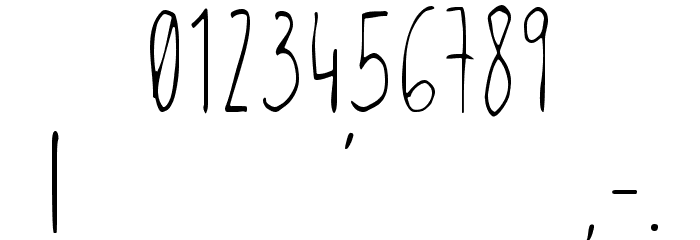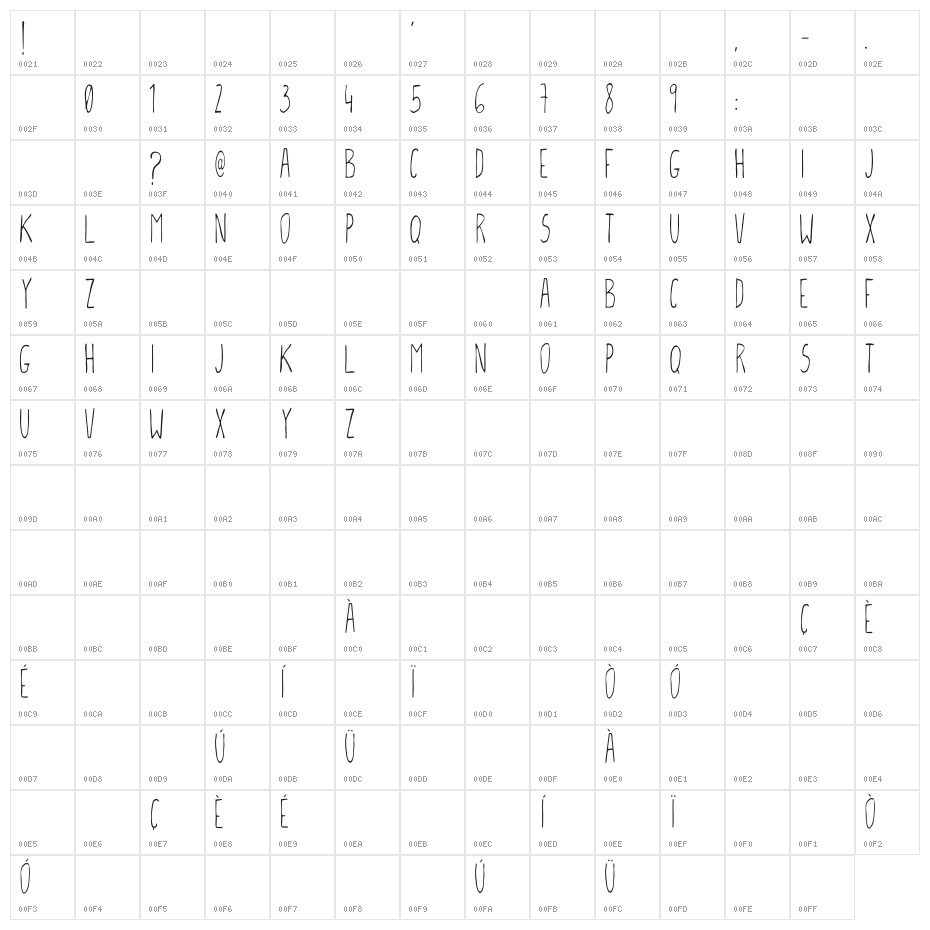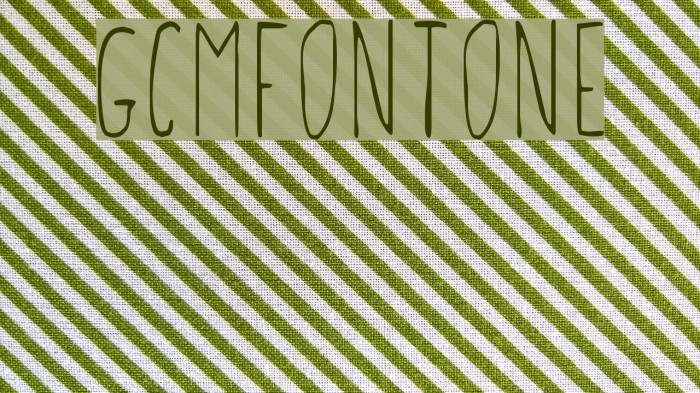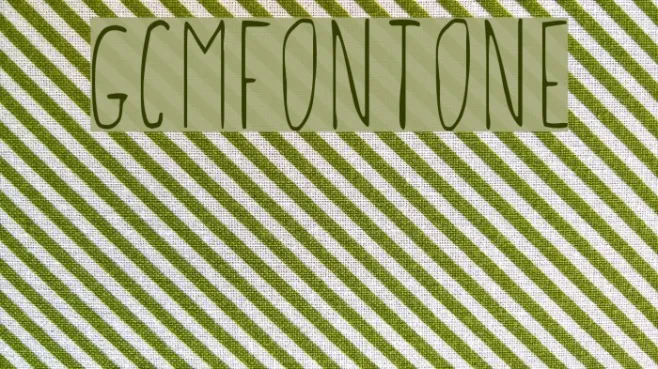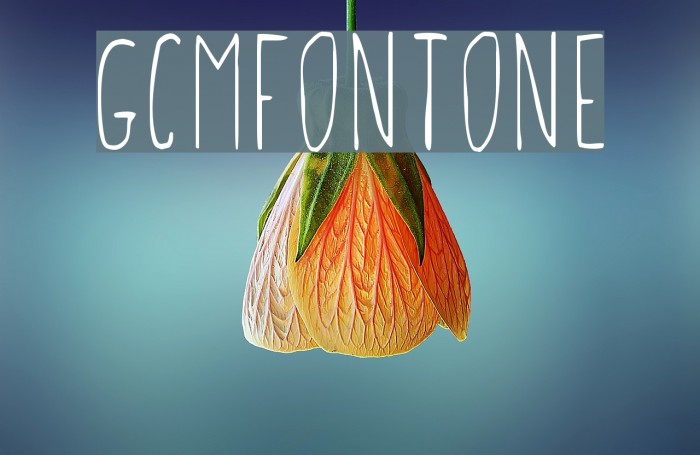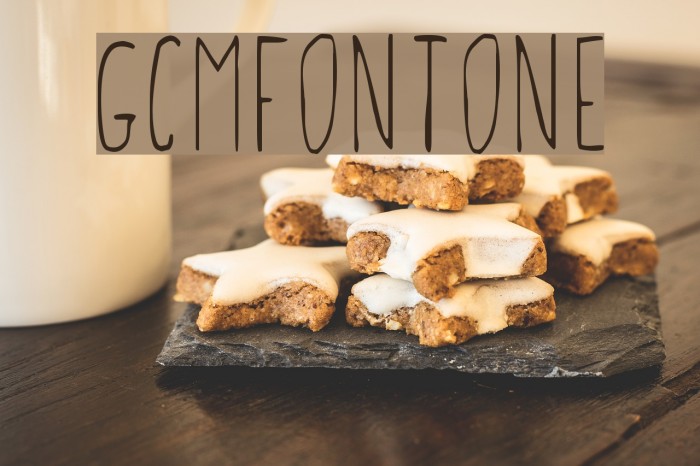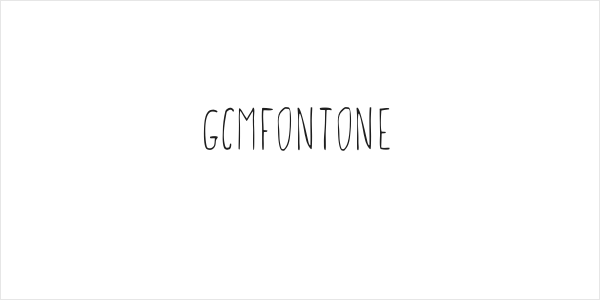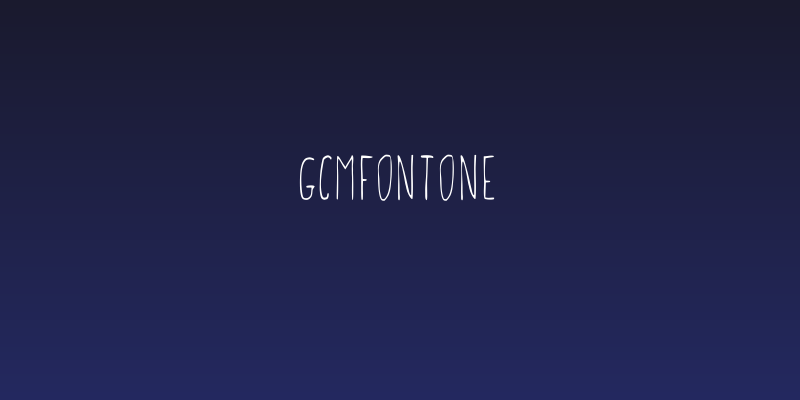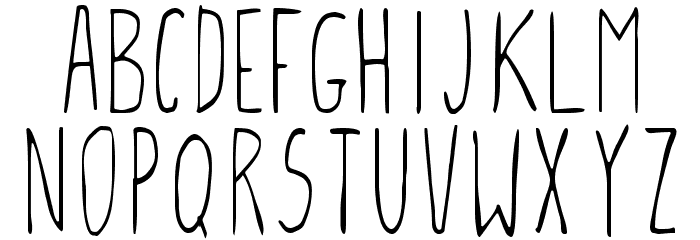
GCMFontone Font
GCMFontone Description
This font features a playful and informal handwritten style, characterized by tall, narrow letters with a slightly irregular baseline. The strokes are thin and consistent, giving it a casual and approachable appearance. The uppercase and lowercase letters maintain a uniform height, contributing to a cohesive look. The numbers and special characters are designed to match the overall style, ensuring versatility across different uses. Its simplicity and charm make it suitable for projects that require a personal touch, such as greeting cards, invitations, or casual branding.
| Proposed Projects | Ideal for greeting cards, invitations, casual branding, and personal projects. |